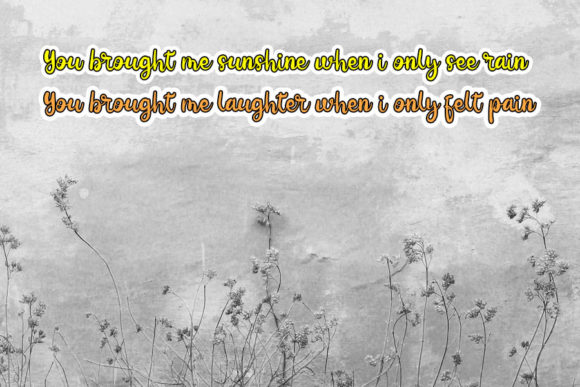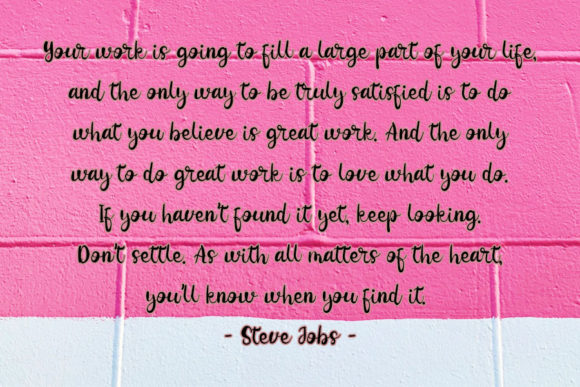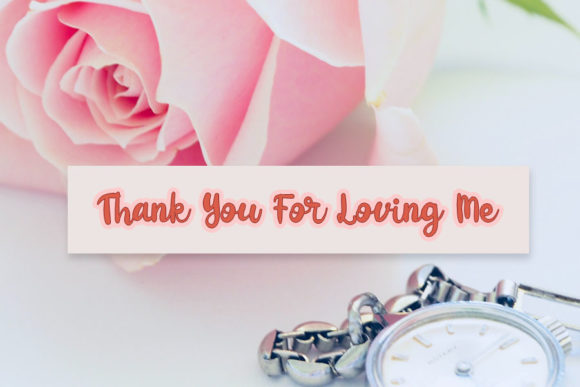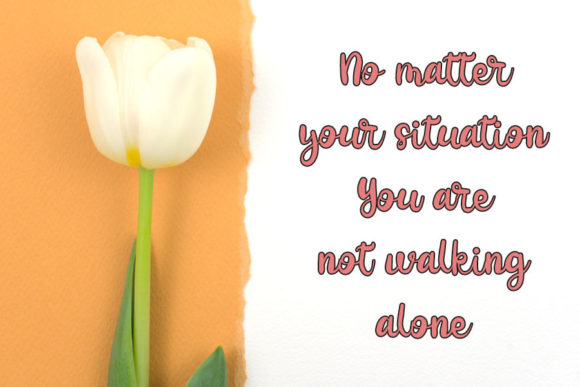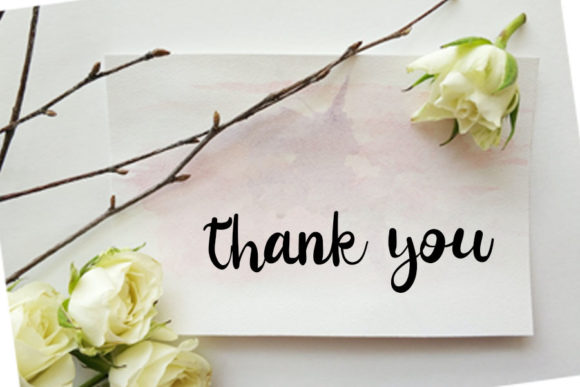
Beautiful Day Font
About Beautiful Day Font
Beautiful Day feels incredibly elegant and flowing. It looks stunning on wedding invitations, thank you cards, quotes, greeting cards, logos, business cards and every other design which needs a handwritten touch. It features a varying baseline, smooth lines, and gorgeous glyphs